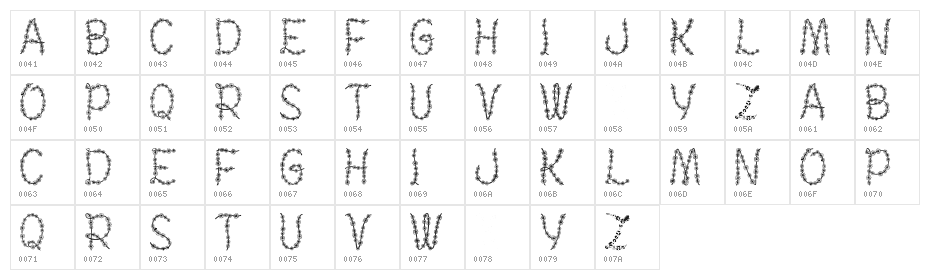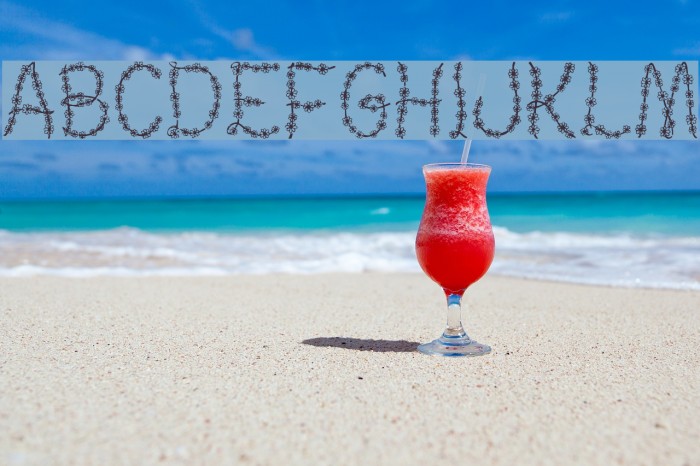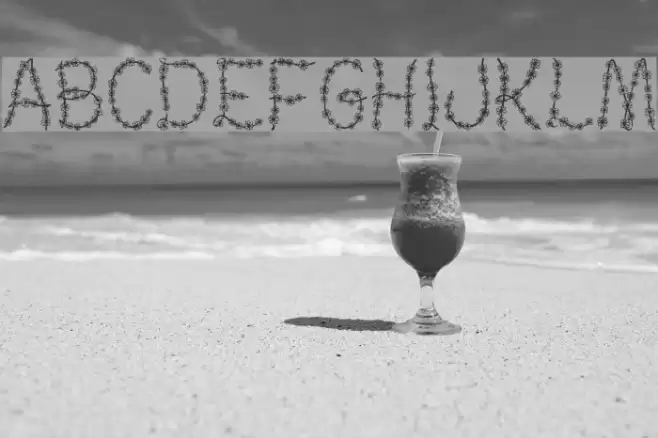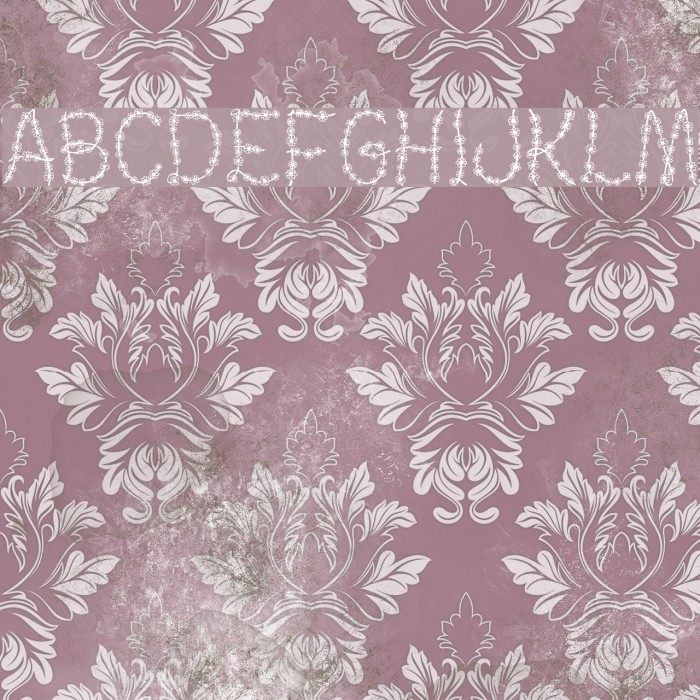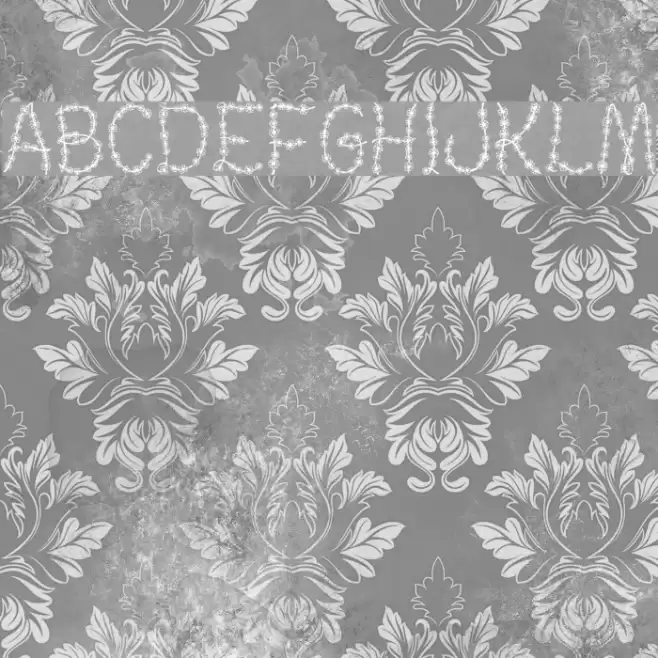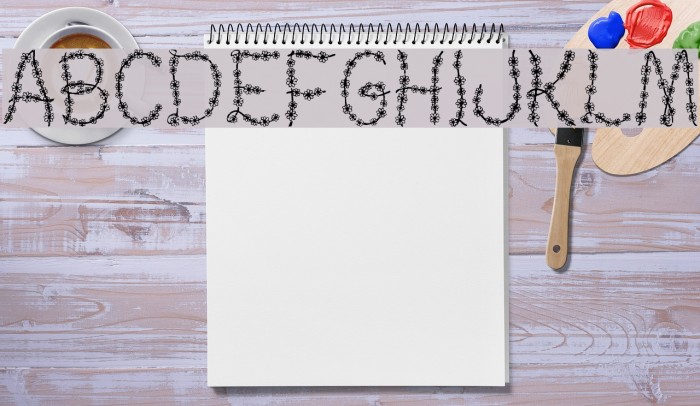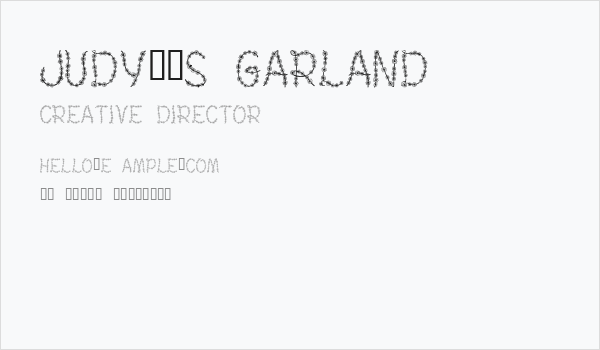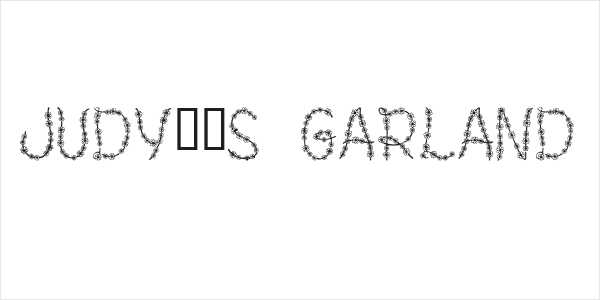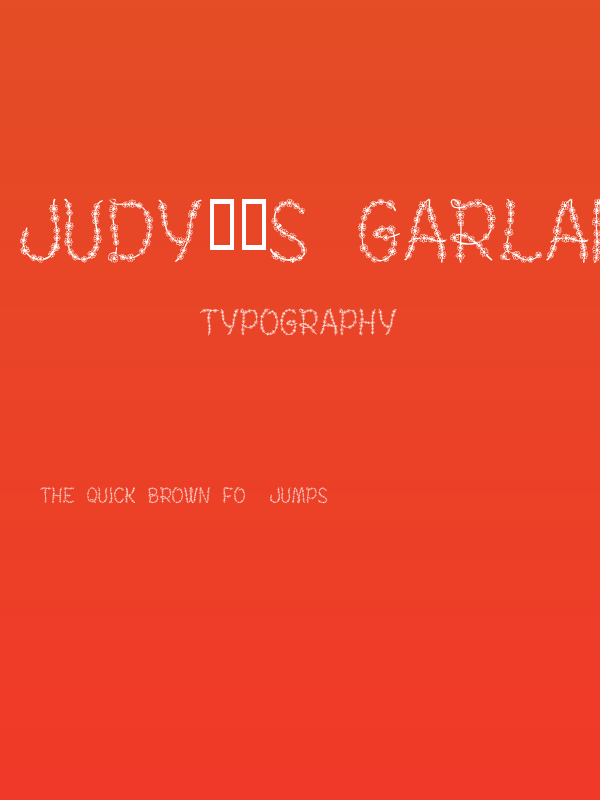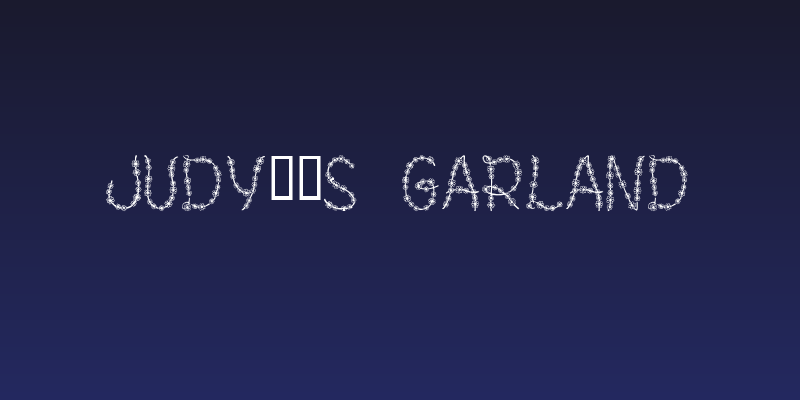
Judy's Garland Font
Judy's Garland Description
This font features a whimsical and decorative style, with each character adorned with intricate floral and vine-like embellishments. The uppercase and lowercase letters maintain a consistent design, creating a cohesive and artistic appearance. The characters are crafted with a medium weight, providing a balanced presence that is neither too bold nor too light. The spacing between characters is normal, allowing for readability while maintaining the decorative elements. This font is ideal for projects that require a touch of elegance and creativity, such as invitations, greeting cards, and artistic posters. Its unique style makes it stand out, adding a personal and handcrafted feel to any design.
| Use Case | Headlines, Artistic projects |
| Proposed Projects | Invitations, greeting cards, artistic posters, and creative branding. |